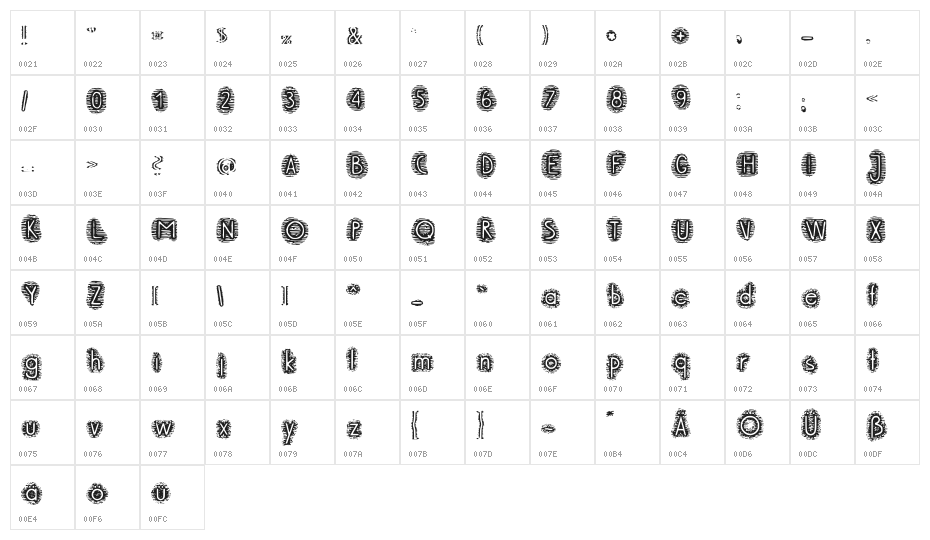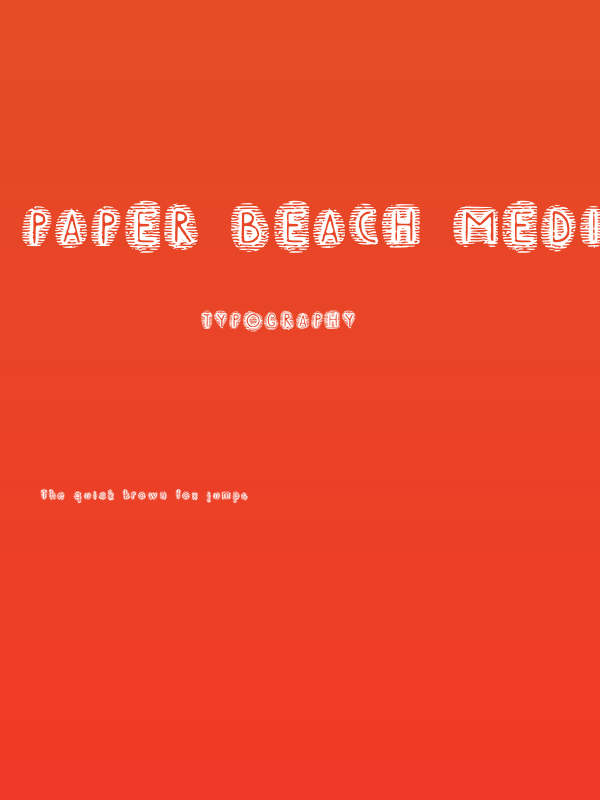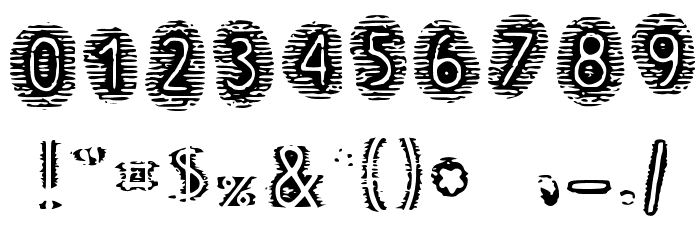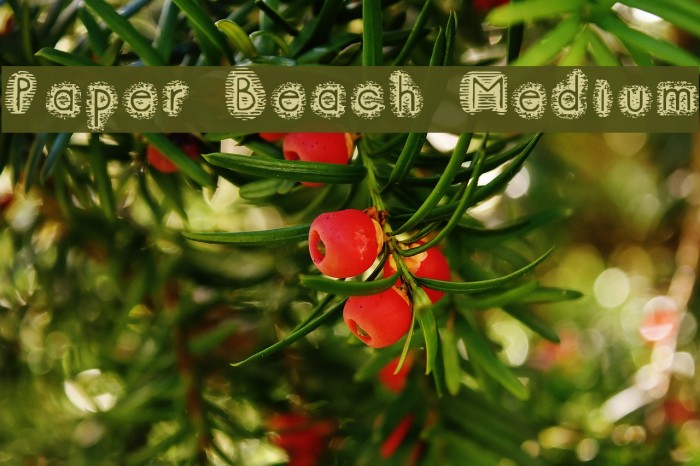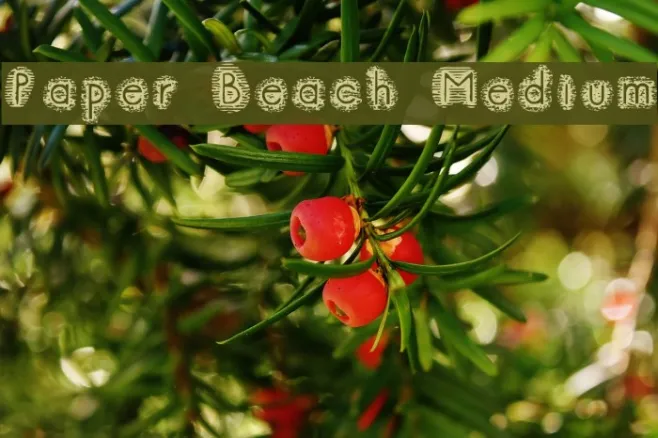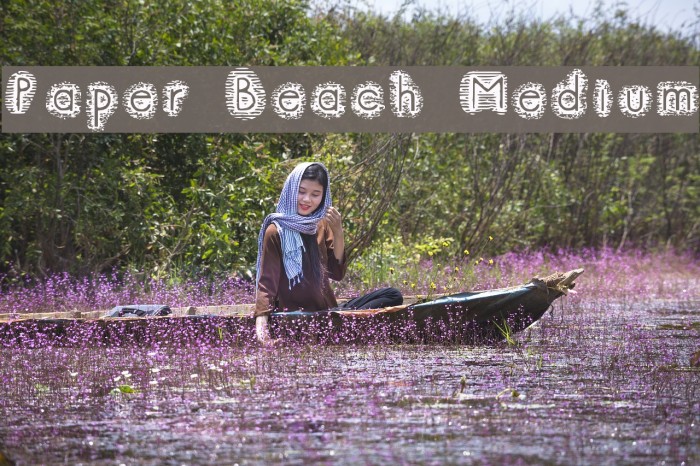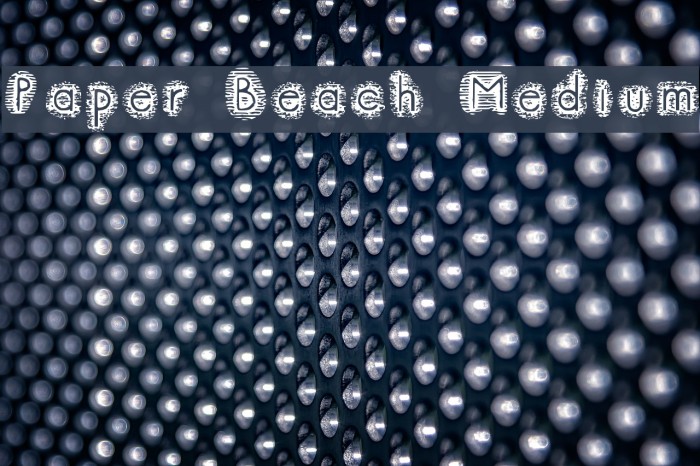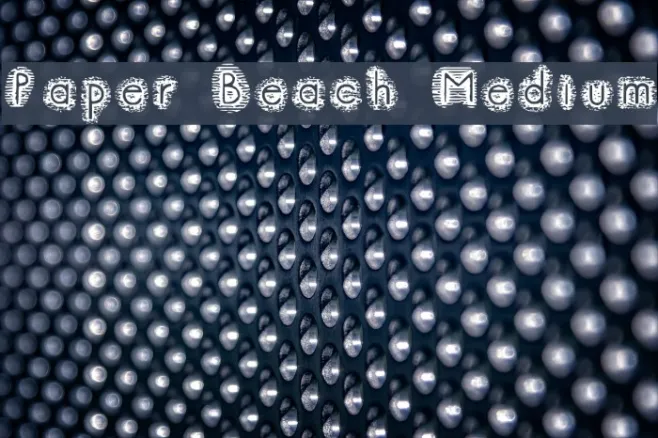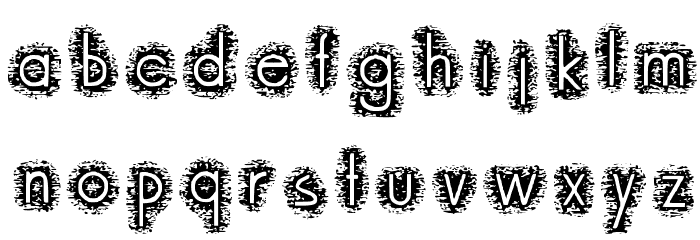
Paper Beach Medium Font
Paper Beach Medium Description
This font features a unique, textured design that resembles a hand-drawn, sketch-like appearance. Each character is enclosed within an oval shape, filled with horizontal lines that create a dynamic, wavy effect. The bold, artistic style gives it a playful and creative vibe, making it stand out in any design. The uppercase and lowercase letters maintain a consistent style, while the numbers and special characters follow the same textured pattern. This font is ideal for projects that require a distinctive and eye-catching look.
| Proposed Projects | Ideal for posters, album covers, children's book illustrations, and creative branding projects. |